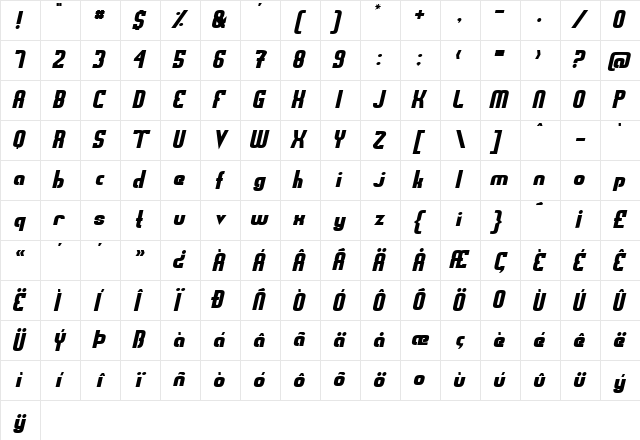
Sweden Funkis RegularOblique Regular
Sweden Funkis RegularOblique Family
Complete Sweden Funkis RegularOblique Regular glyph index. Displaying only characters natively supported by Sweden Funkis RegularOblique Regular font.
Design Context for Sweden Funkis RegularOblique
Sweden Funkis RegularOblique has an approachable, lighthearted character - its loose, expressive forms are well-suited to children's content, casual branding, and fun-first design. The slanted form adds forward momentum and visual energy.
Font Pairing: Pairs well with a rounded or humanist sans for body copy, maintaining the friendly tone without relying on Sweden Funkis RegularOblique to carry extended reading.
Pro Tip: Use Sweden Funkis RegularOblique at larger display sizes where its expressive character can land. Pair with a clean, simple sans for body copy to maintain readability.